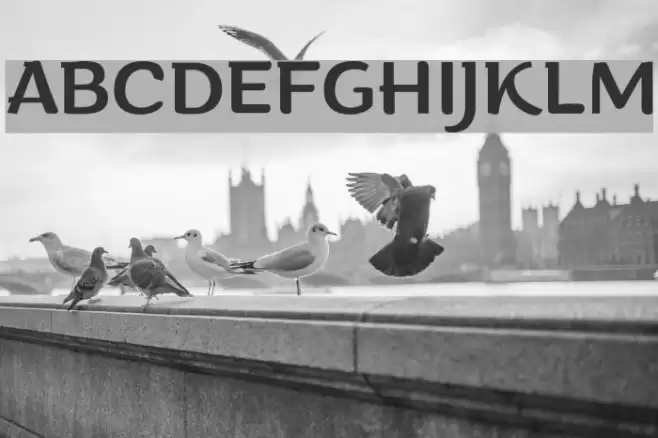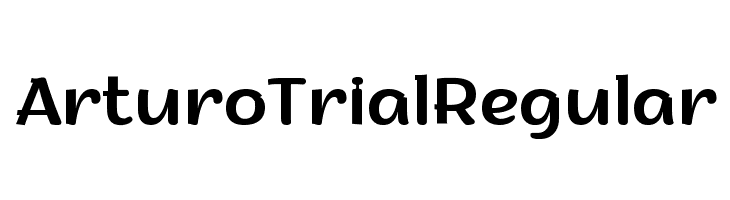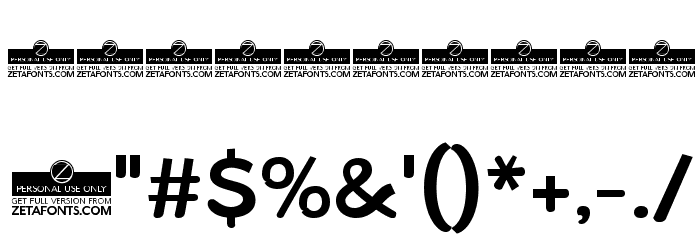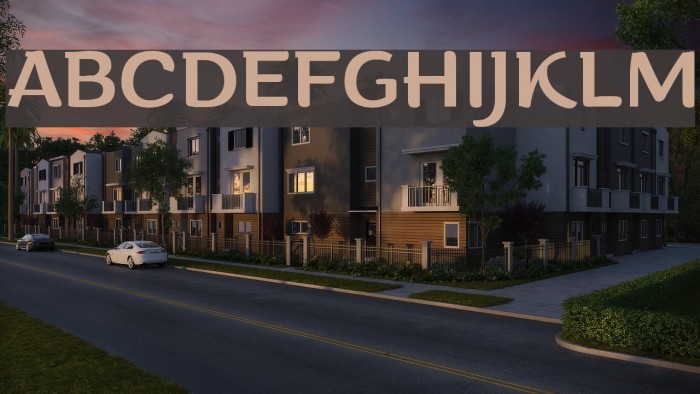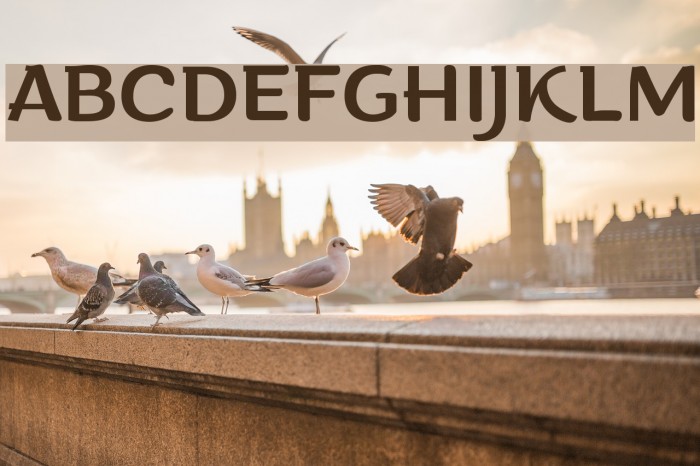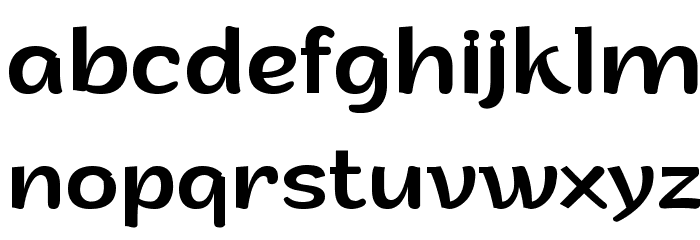
Arturo Trial Regular Font
Arturo Trial Regular Description
This font features a bold and modern design with a playful yet professional appearance. The uppercase letters are robust and slightly condensed, giving a strong presence, while the lowercase letters maintain a friendly and approachable style. The font includes a full set of numerals and a variety of special characters, making it versatile for different uses. The strokes are consistent in weight, providing a uniform look across all characters. The overall design is clean and easy to read, suitable for both digital and print media.
A bold, modern font with a playful yet professional style from Uncategorized fonts.
- Proposed Projects: Ideal for branding, advertising, headlines, and digital media projects.
- Use Case: Headlines, Logos, Branding